Fonts considered to be used to complete a designing point. There are many things which matter a lot & essential whether it goes with the theme, draws the attention or else. It improves other features & limiting them but mostly depend on designer’s choice of selection of perfect or well suited fonts. Appropriate font will not only boost the complete appearance & design of your projects but will make the end user expertise much convenient as well. So, this is one of the main reasons which push designers to look for fresh new fonts inside their collection & design related projects.
Having a large fonts collection is essential as its usage is unlimited & endless because they serve the areas of all sorts of things i;e readable, print media, business products, marketing & designing. I must say that a range & scope of top notch fonts are fundamental as they in fact have an effect on the visibility & popularity of the design which level its qualities. If designers want to maintain their Font collection library, they must have fresh new stylish fonts to keep user attracted to their website.
In this article, I have collected 40+ tremendously stylish Fresh Free fonts for your design & projects. Your search stops here If free new fresh Fonts are what you’ve been looking for which are creative & different.
BARON (Free typefamily)
Baron is an free uppercase display typeface inspired by the classic sans serif font familes. This typeface is, because of his many alternative options and weights, perfect for usage in posters/logotypes and headlines.JQuery Countdown Plugin – Final Countdown
Free Font Ponsi Rounded Slab Regular
SIFONN FONT (free weights)
Sifonn is a display typeface consisting in 3 weights, a Pro version with more than 900 glyphs, with a large set of ligatures, titling alternates, fractions, catch words and multiple opentype features. It also comes with a Basic and Basic Outline version with the standard char set (360 glyphs), both available for free download.
Dense typeface
Sabado (Free typefamily)
Chrome Light. Free
Lousiane (free font)
Infinity
Infinity free font was created from the simplicity of lines and curves with round corner and cap. The name comes from guides for creating, they are similar to number 8 and infinity symbol. For my personality, I really like the number 8 because it is my birth date. Because of my lineage, in China, The word for the number 8 (八 : bā) sounds similar to the word which means “prosper” or “wealth”, the number 8 is viewed as such an auspicious number that even being assigned a number with several eights is considered very lucky. The font is applicable for any type of graphic design – print, web, motion graphics, etc.
Tracks Type
Tracks type is all caps fonts inspired with railway tracks slash, static, dynamic, and clean. This fonts available in two different style, Regular and Italic. It was designed for display type such as headlines, poster, title, etc.
Manteka
BoB Font
Johanna Free Font
Canter free fonts
ROUNDA (Free Font)
Barkentina Typeface and Free Font
Airbag Typeface and Free Font
Paranoid a free font
NOUGATINE free font
Mojave Typeface
Zwodre Free Font
HIGH TIDE free typeface
Born Typeface (Free Font)
Chomp! Typeface
VETKA free font
Corduroy Slab Free
UNIQUE free font
Valentina typeface [free font]
Distractor free typeface
ALEO | Free Font Family
Deibi v1.0 – free font
cassannet
Musket Free Font
Bravo! Free Typface
Days typeface
Stroke – Free font
Typeface Adec (free)
Quark – Free font
Oh! Mai Mai!
Oh! mai mai!® its a dangerous and cute typeface created by Jorge Artola. Inspired by the mai mai monster® it is fully equipped with numerals, accents, punctuation and special characters! It also includes a bonus wallpaper pack!
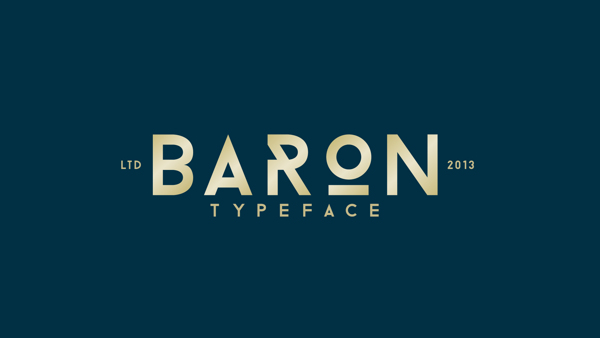
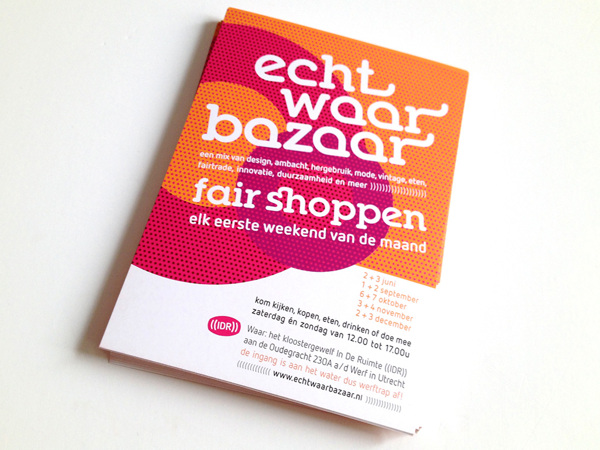
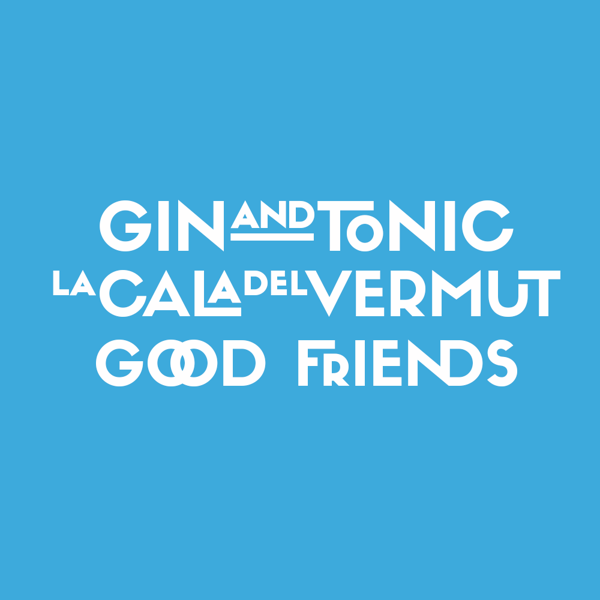
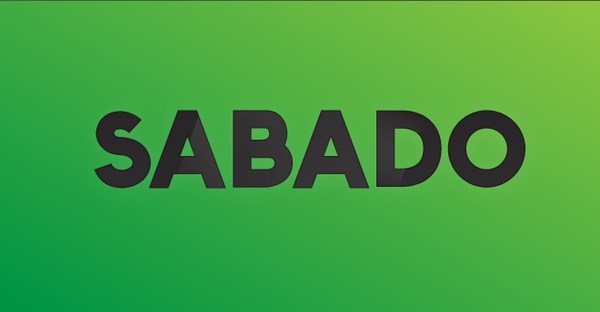
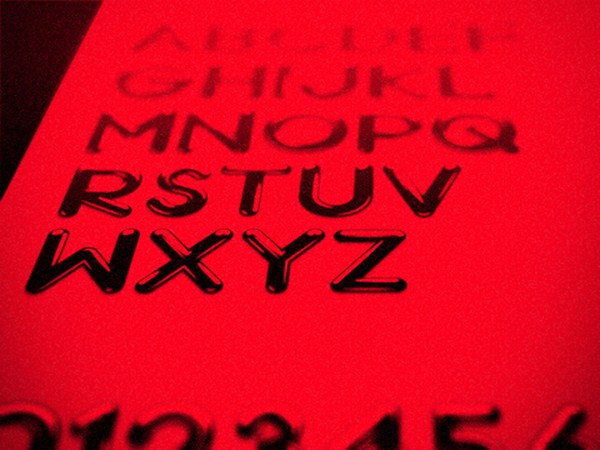
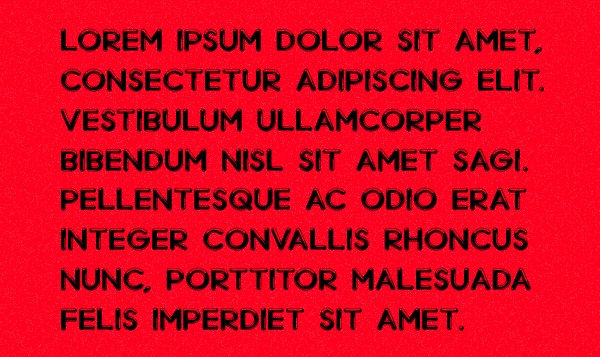
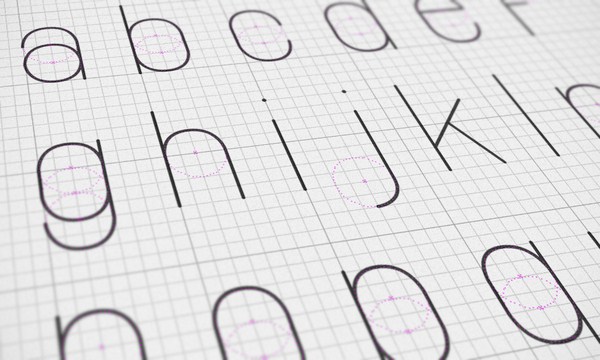
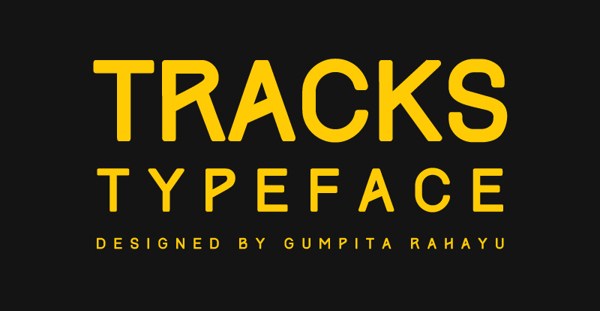
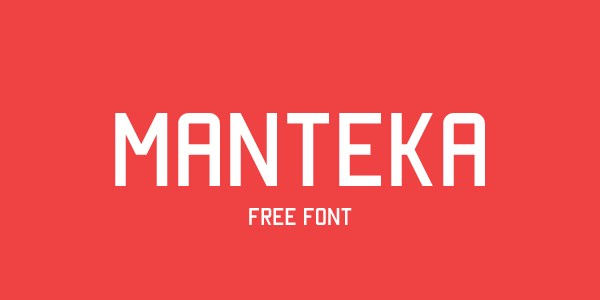
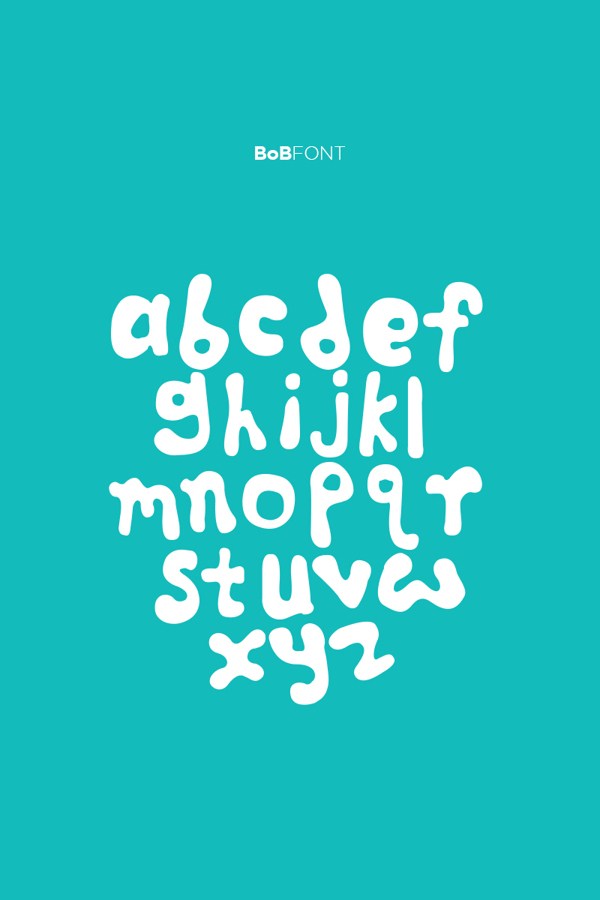
![Valentina typeface [free font]](https://www.downgraf.com/wp-content/uploads/2013/10/Free-Fonts-28.jpg)